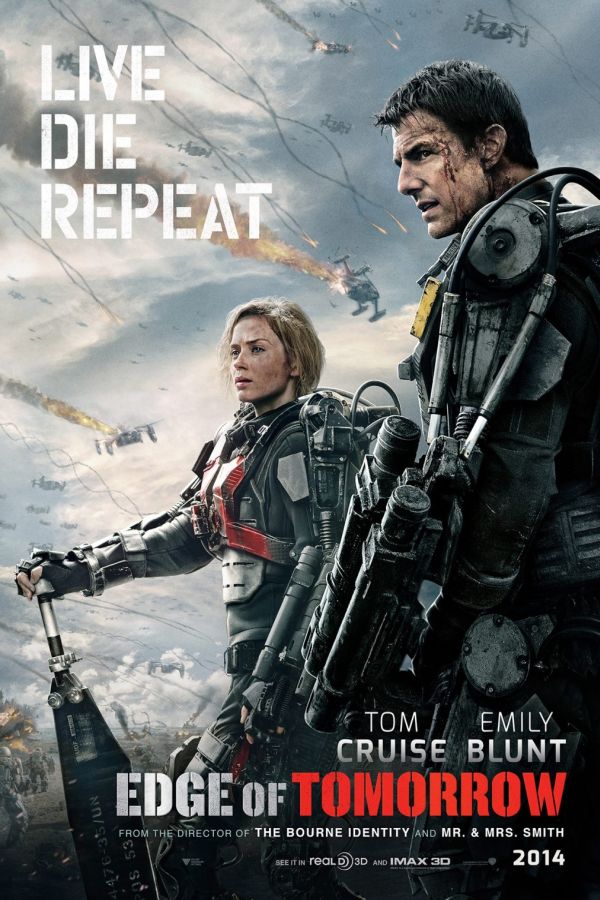
Edge of Tomorrow Font
Fonts in UseEdge of Tomorrow is a 2014 science fiction film starring Tom Cruise and Emily Blunt. It follows a soldier who finds himself trapped in a time loop, forced to relive the same battle against an alien race over and over again.
The poster of the movie showcases a stencil sans-serif font, likely to be Knockout No. 69 Full Lightweight. The tagline "Live Die Repeat" appears to be set in a stenciled FF DIN typeface.